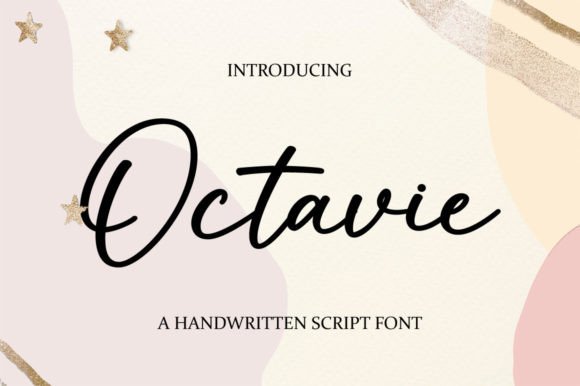
Step into the world of elegance and sophistication with Octavie Font, a captivating creation from Graphix Line Studio. This enchanting script font is a true masterpiece, meticulously crafted to bring a touch of allure to your designs. Its delicate strokes, graceful curves, and balanced characters make it the perfect choice for those seeking a font that exudes beauty, refinement, and charm.
With Octavie Font, your words will dance across the page like a symphony of flowing ink. Its elegant design adds a touch of timeless sophistication to any project, whether it's a captivating logo, an alluring invitation, or a stunning piece of marketing material. Let your creativity soar and immerse yourself in the world of artistic expression as Octavie Font transforms your designs into works of art.